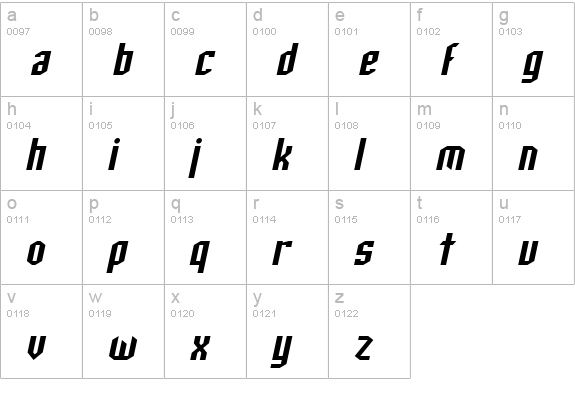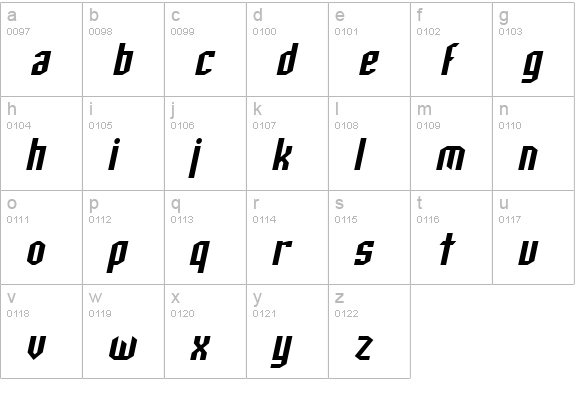
SF Archery Black Oblique Font Details
SF Archery Black Oblique is a maximum-weight, dramatic, italic variant in the SF typeface family \xE2\x80\x94 well suited to maximum-impact headlines, posters, and packaging.
SF Archery Black Oblique is a stunning and versatile font that captures the essence of modernity and sophistication. With its sleek and stylish design, it adds a touch of elegance to any project it is used in. The oblique slant gives the font a unique and dynamic look, making it perfect for creating eye-catching headlines, logos, and branding materials. What sets SF Archery Black Oblique apart is not just its impeccable design, but also the fact that it is available for free. Yes, you heard that right! This extraordinary font is freely available to download at FontsMarket.com. Whether you are a professional designer or simply someone looking to add a touch of creativity to your personal projects, SF Archery Black Oblique is the perfect choice. With its clean lines and balanced proportions, this font is incredibly easy to read, making it suitable for a wide range of applications. Whether you are designing a website, creating a poster, or crafting a magazine layout, SF Archery Black Oblique will ensure that your message is delivered with utmost clarity and impact. The versatility of SF Archery Black Oblique extends beyond its captivating appearance. It supports a wide range of languages and characters, making it accessible to a global audience. This font also comes with a variety of stylistic alternates and ligatures, allowing you to further customize your designs and add a personal touch. Whether you are a seasoned designer or just starting out, SF Archery Black Oblique is a font that will inspire and elevate your creative projects. Its combination of elegance, functionality, and the fact that it is freely available to download at FontsMarket.com, makes it a must-have in your design toolkit. So, why wait? Download SF Archery Black Oblique today and take your designs to new heights!